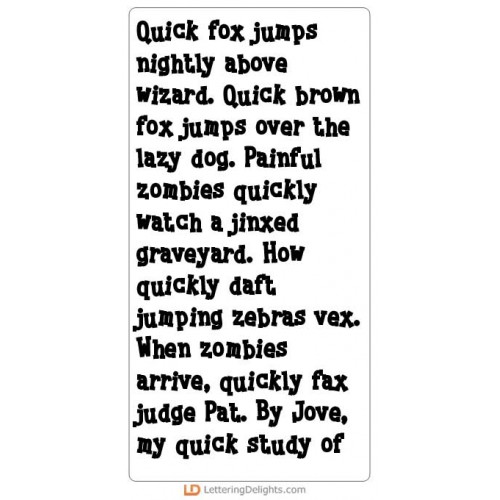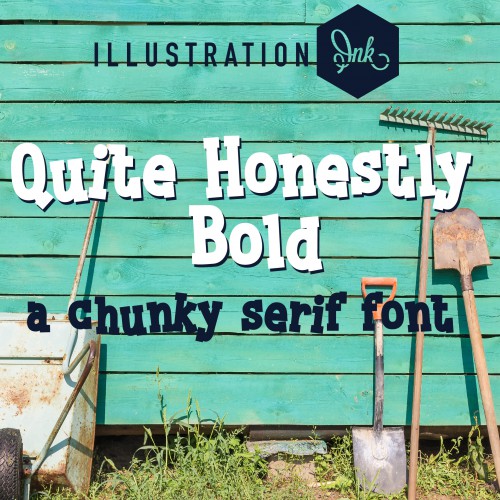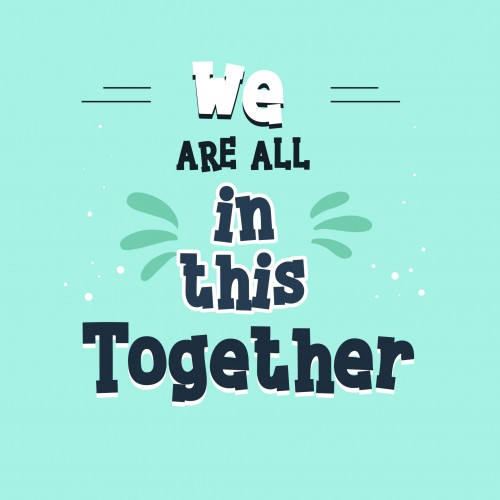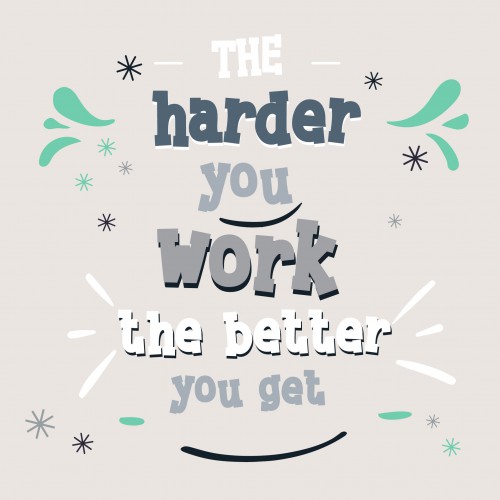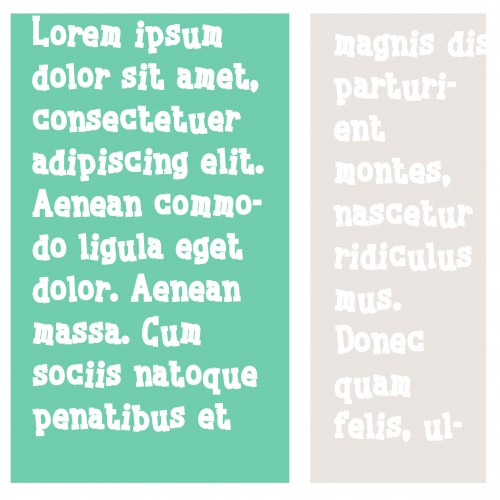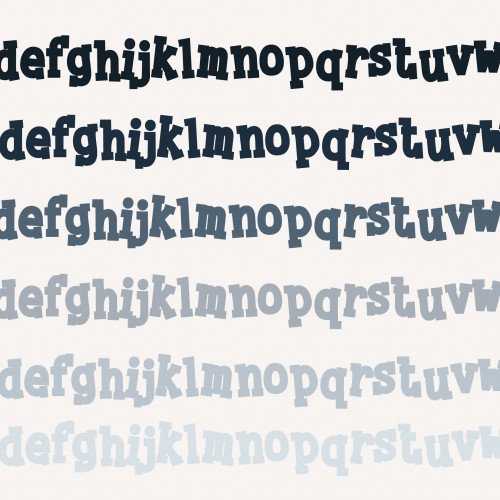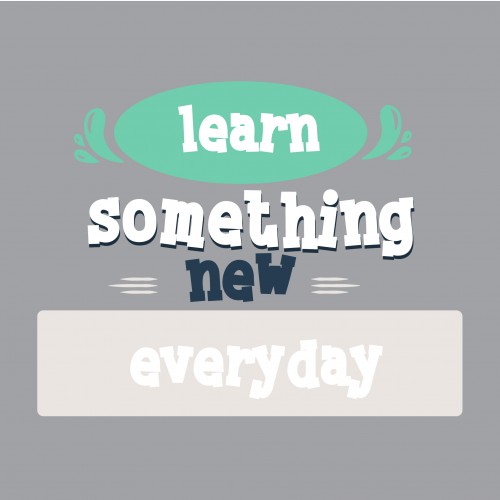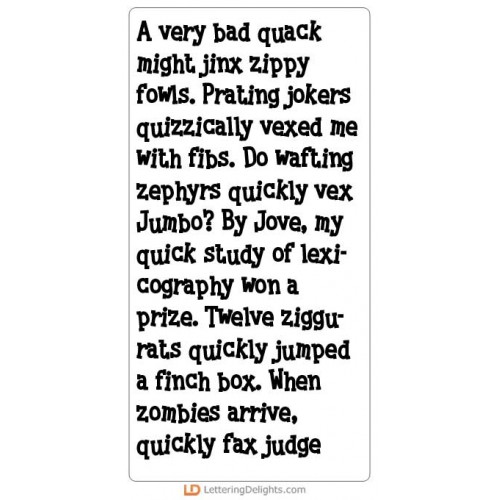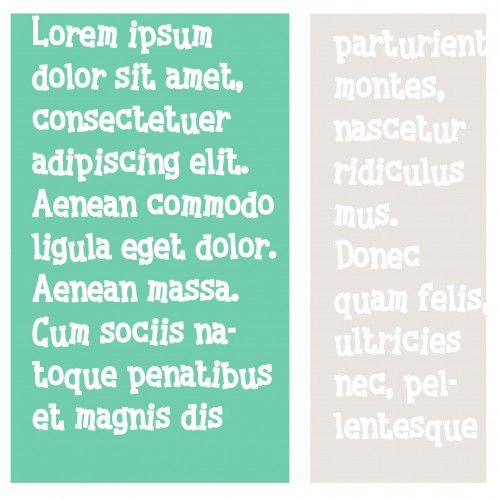
ZP Quite Honestly Bold - FN
This hand-crafted serif font features toggled, fun lettering with a small amount of texture...
ZP Quite Honestly - FN
This hand-crafted serif font features toggled, fun lettering with a small amount of texture...